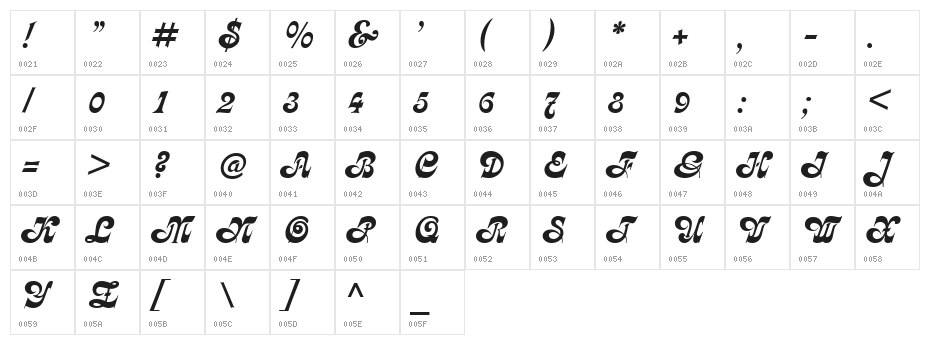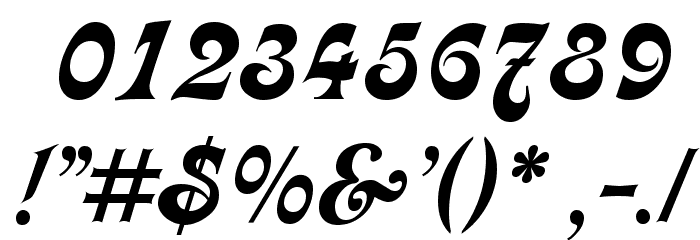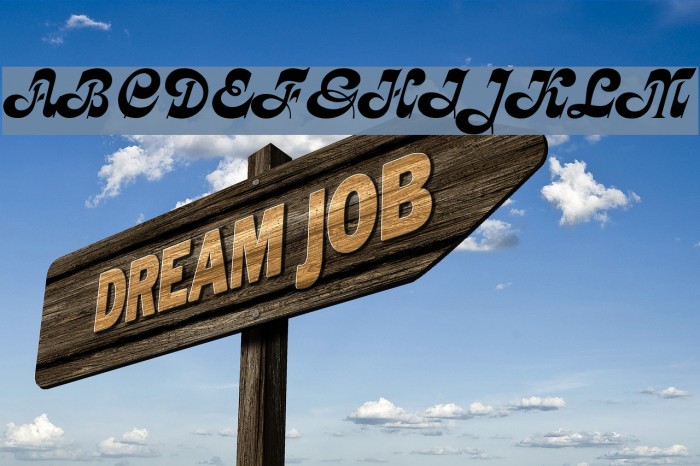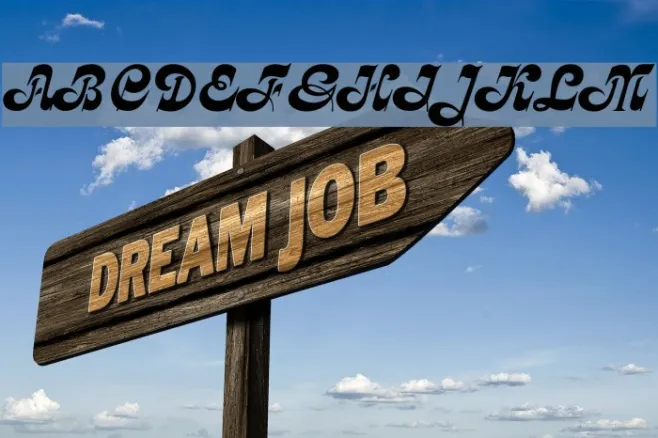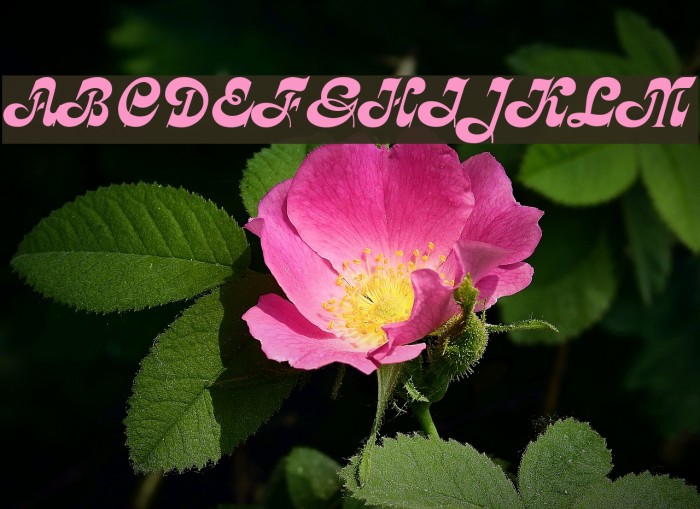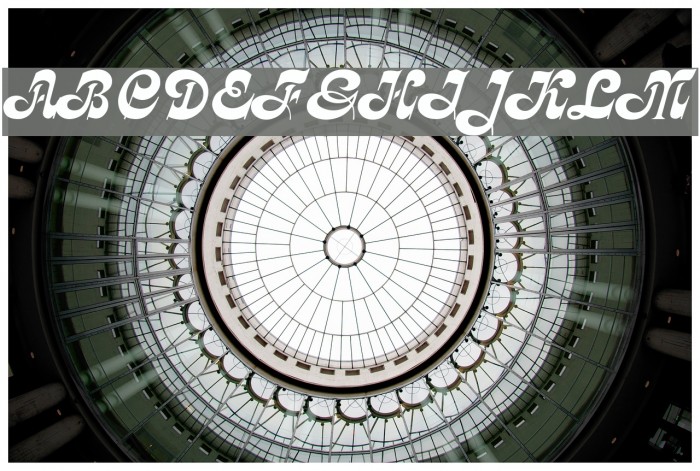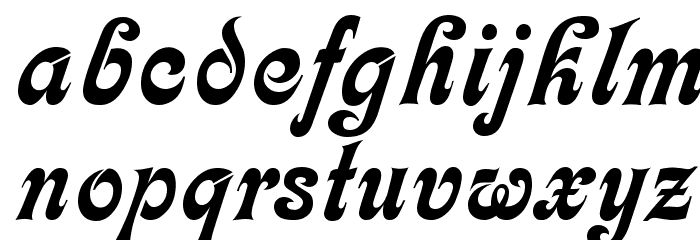
Partridge Font
Partridge Description
This font is a bold and expressive script with a decorative flair. The uppercase letters are characterized by their intricate, swirling strokes that give a sense of movement and elegance. The lowercase letters maintain a consistent style, with smooth curves and a slightly condensed form. Numbers and special characters are crafted with the same attention to detail, ensuring a cohesive look across all elements. The font's unique style makes it stand out, with high contrast between thick and thin strokes, adding to its dramatic appearance.
| Width | Condensed |
| Use Case | Logos, Invitations, Artistic Projects |
| Proposed Projects | Ideal for branding, invitations, and artistic projects where a touch of elegance and flair is desired. |